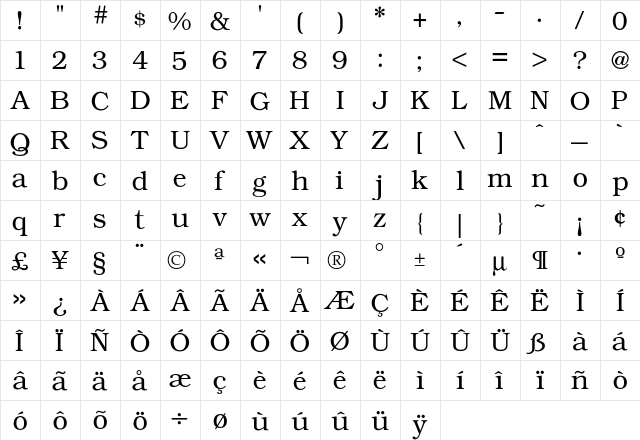
Bookman Light
Design Context for Bookman Typeface
Bookman offers clean, dependable letterforms without strong stylistic allegiance, making it a practical choice for designers who need flexibility. Its slender proportions lend an understated elegance to any composition.
Pro Tip: Use Bookman in both headline and body roles to test its range before committing to a single application.